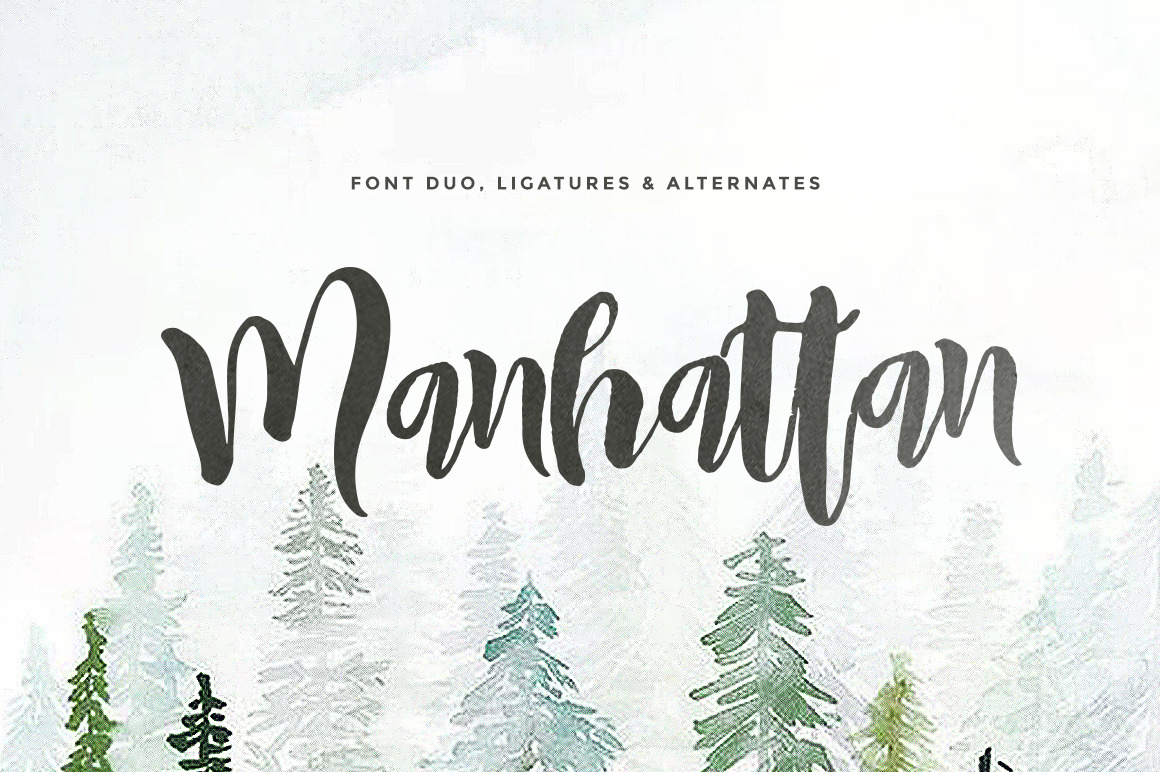
Introduce Manhattan Script, made handwritten script with authentic dry brush imperfections, lovable script come with 2 font combination, suitable for branding, quote, poster, product, packaging or bloging.
Manhattan script • A hand Drawn script font containing upper & lowercase character, numeral and punctuation, combine with alternate upplercase character, so you could combine with custom type
Manhattan sans • Simple type uppercase charcter could make a great unformal character
Ligature • discreationary ligatures can also be turned on in opentype software, so automatically switch standard letter into provided ligatures, refers to glyphs display to see availble ligature glyphs